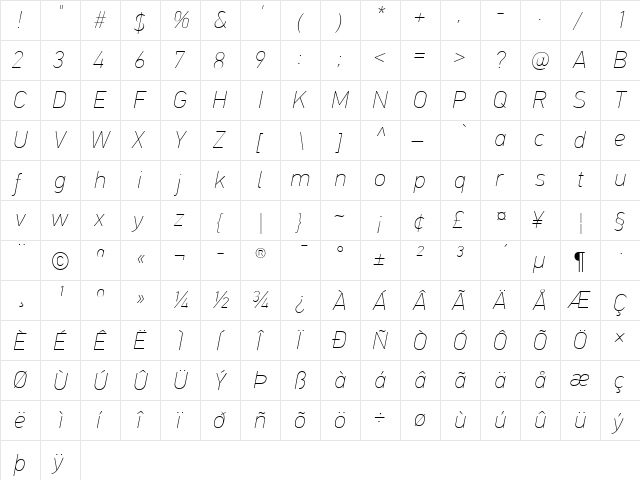
PF DinText Pro ExtraThin Italic
Design Context for PF DinText Pro Typeface
PF DinText Pro is a composed and adaptable typeface that performs quietly and consistently across a wide range of design contexts. Its italic angle brings a sense of urgency and motion to the letterforms. The delicate stroke weight brings airiness and refinement to layouts.
Pro Tip: Try PF DinText Pro for annotation and caption copy alongside an upright companion — the contrast in angle creates a dynamic but ordered typographic system.